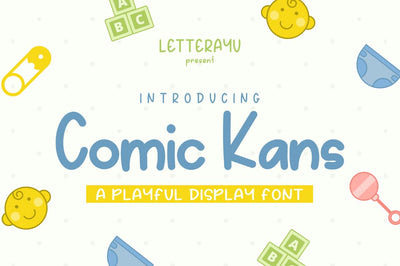
Comic Kans - A Playful Font
ComicKans is a Cute and Playful Display font with a pretty and cute kid style. This font is made in a natural, original handwriting style. This font is perfect for Branding, children's products, book covers, children's t-shirts, girls t-shirts, women's t-shirts, stickers, quotes, flyer designs, food designs, logotypes and much more.